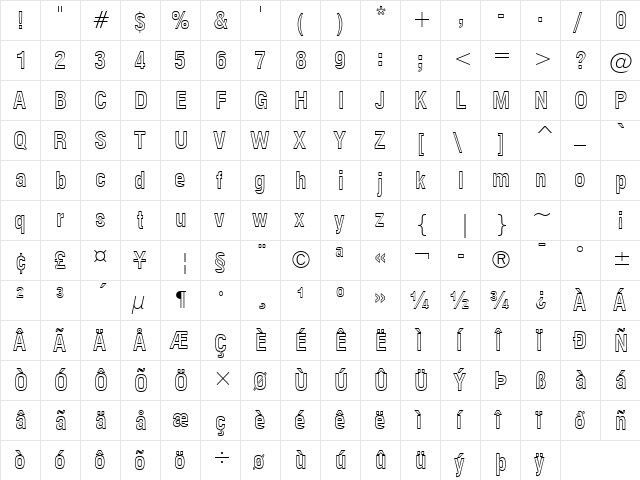
Swis721 BdCnOul BT Bold Outline
Design Context for Swis721 BdCnOul BT Typeface
Swis721 BdCnOul BT brings ornamental detail and strong personality to headlines and identities, where visual impact matters more than quiet functionality. Its bold stroke weight gives it real presence on the page.
Font Pairing: Pair with a clean neutral sans-serif for body copy to let Swis721 BdCnOul BT's character lead without overwhelming the composition.
Pro Tip: Treat Swis721 BdCnOul BT as the centrepiece of your typographic hierarchy. One strong heading set in a decorative face can carry an entire layout.